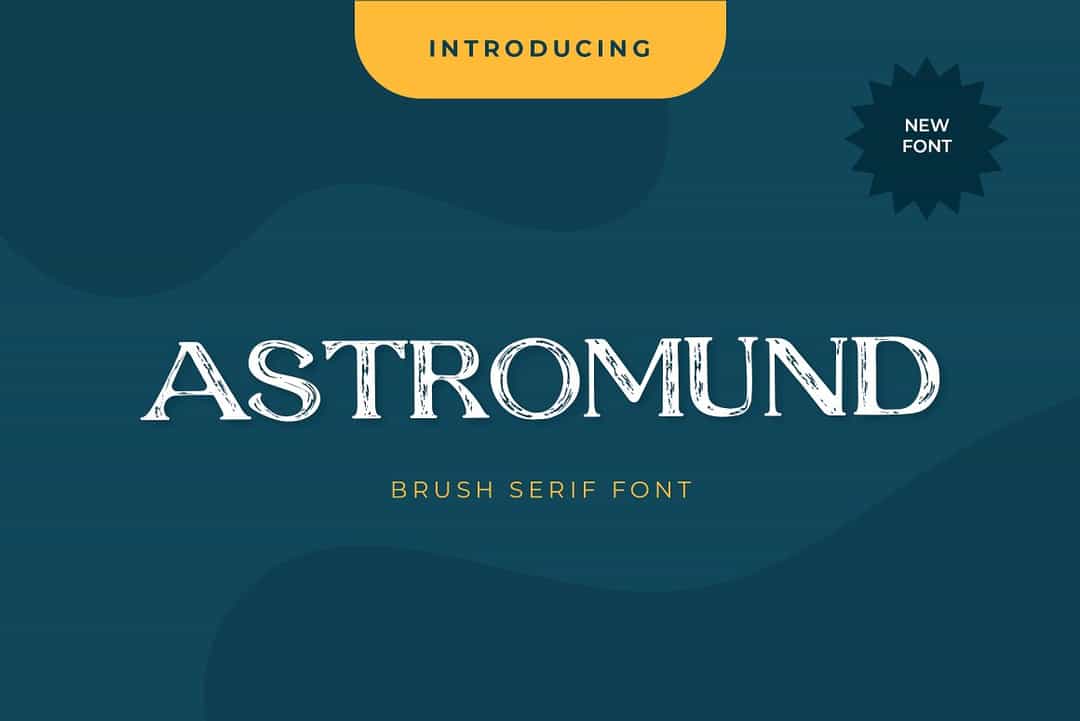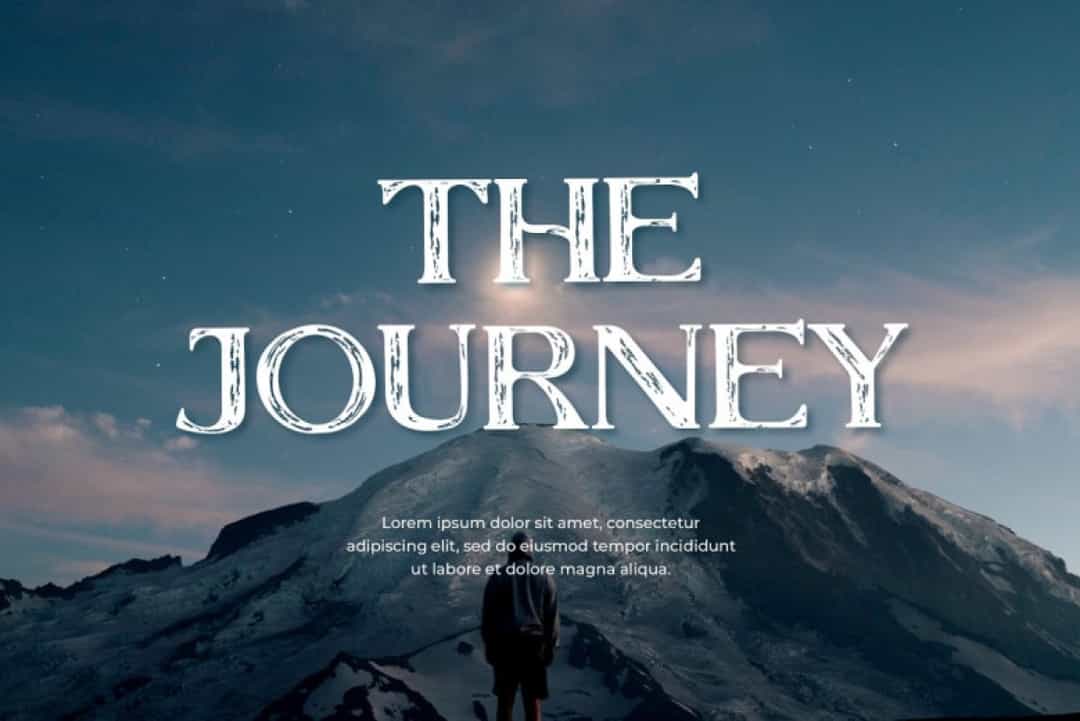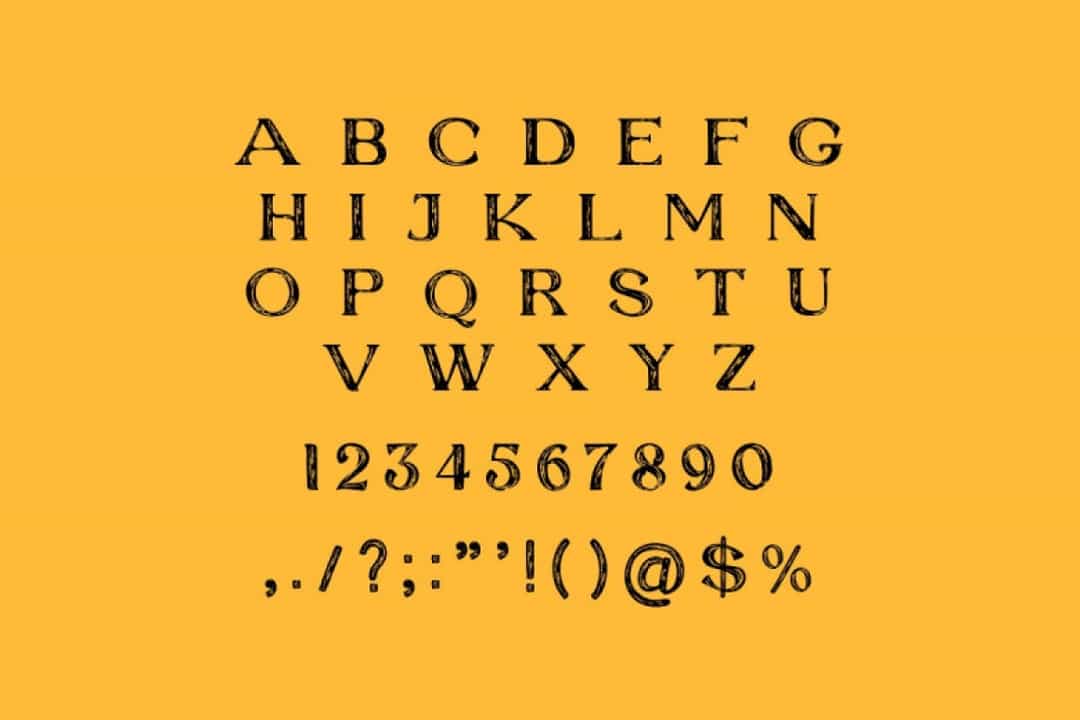
Astromundis is a contemporary brush serif font with elegant, classy modernity and elegant characteristics that makes for the ideal font choice for logo, signature, stationery wedding invitations, typography quotes for book covers or magazine covers, headers for websites or clothing packaging designs as well as branding that shows both feminine and masculine characteristics. Additionally, branding that displays fashion or editorial characteristics shows it off perfectly.